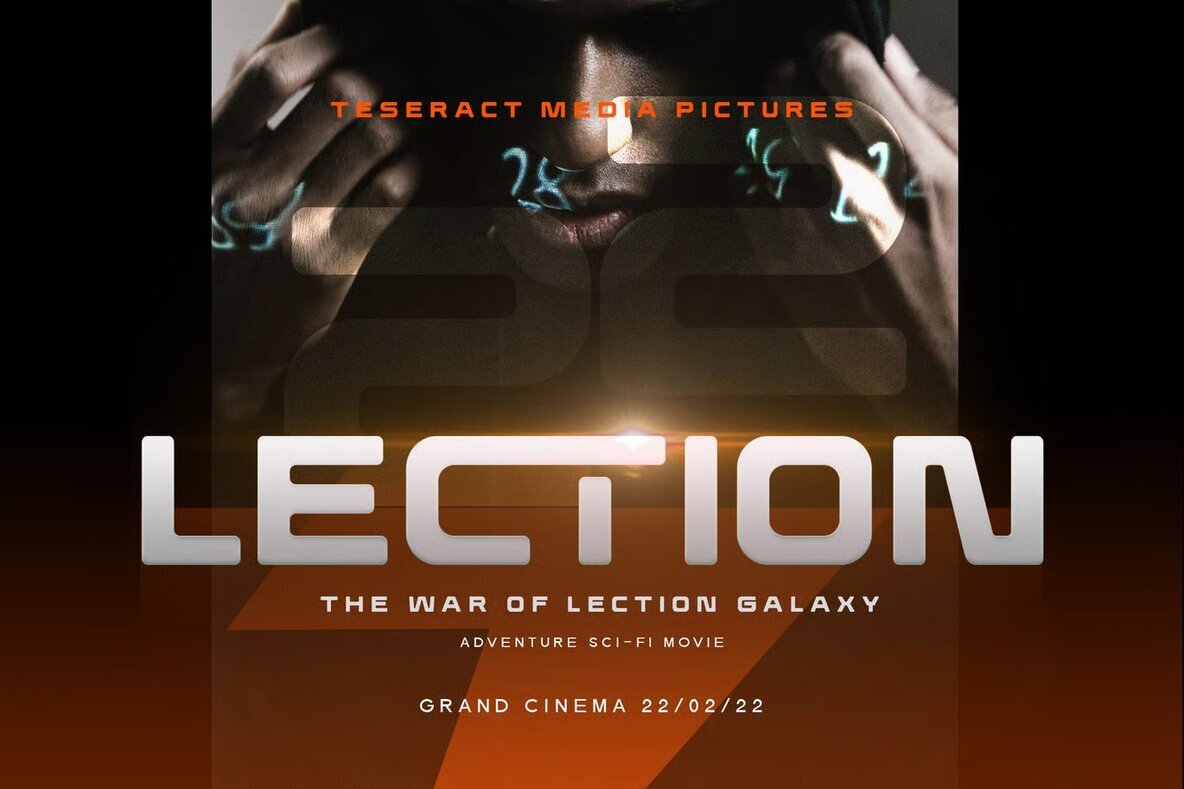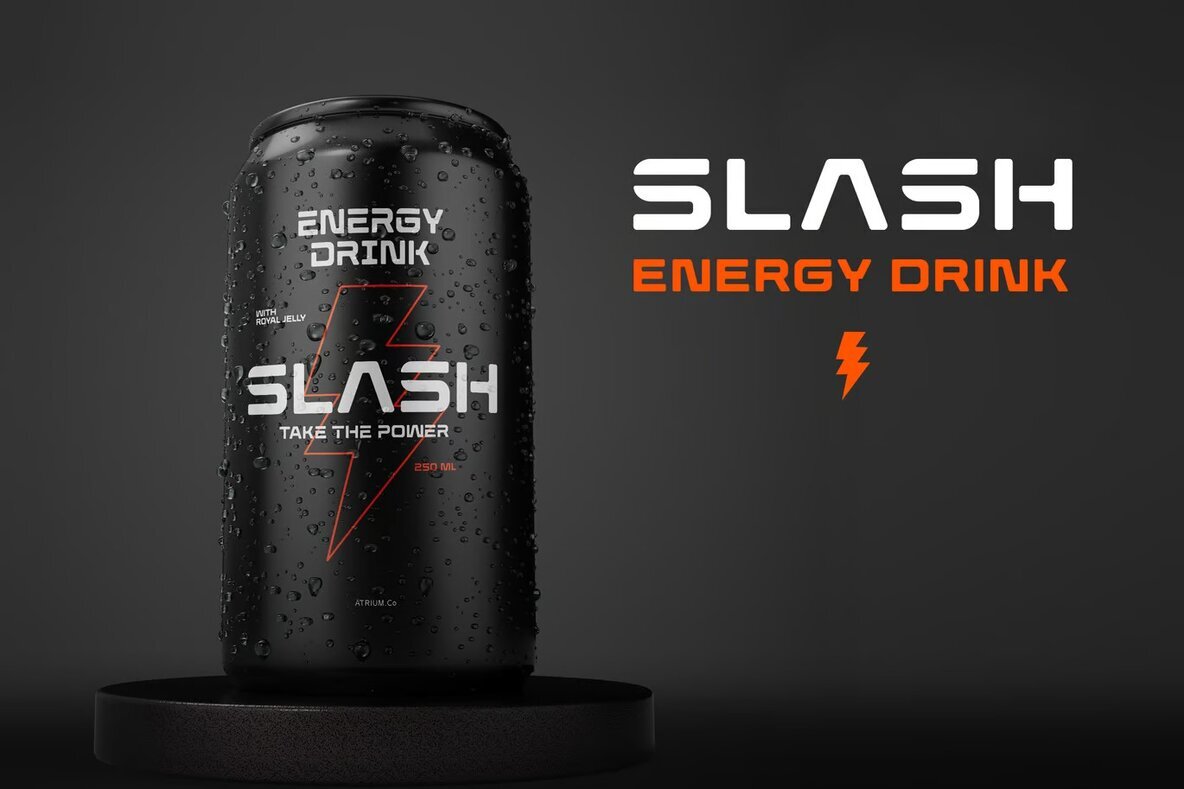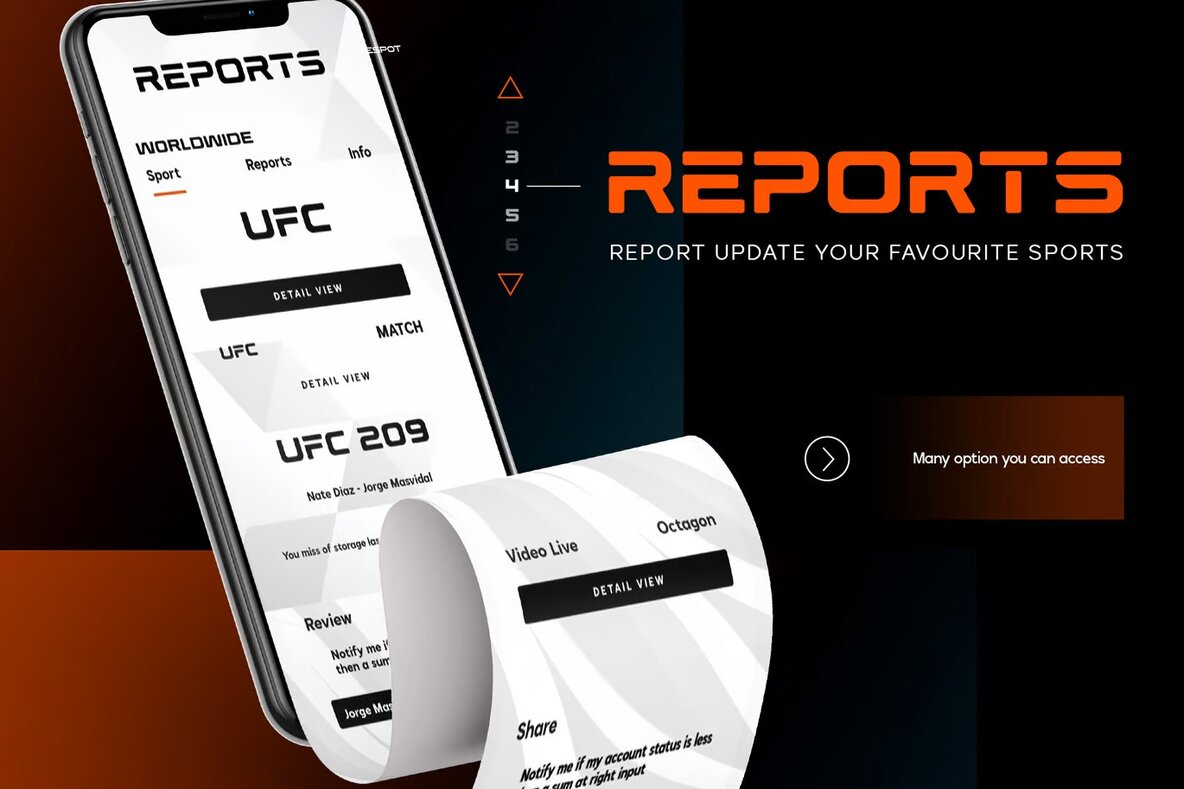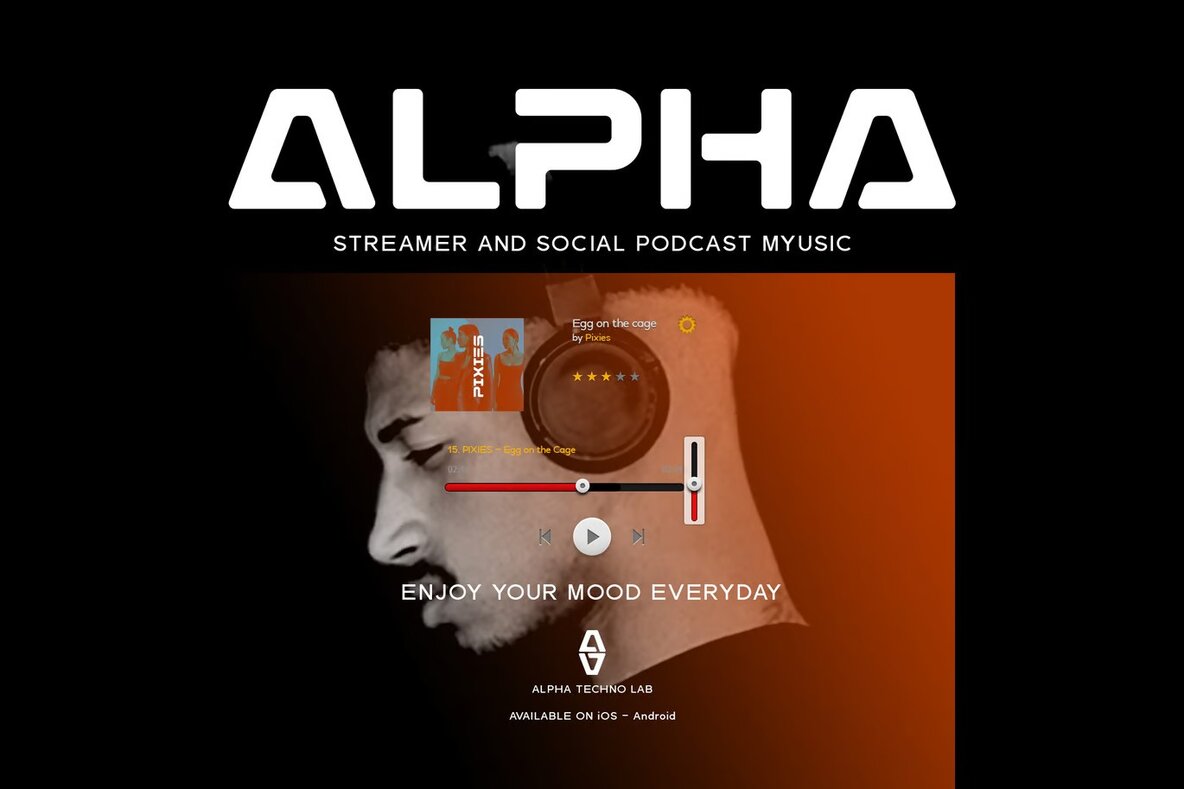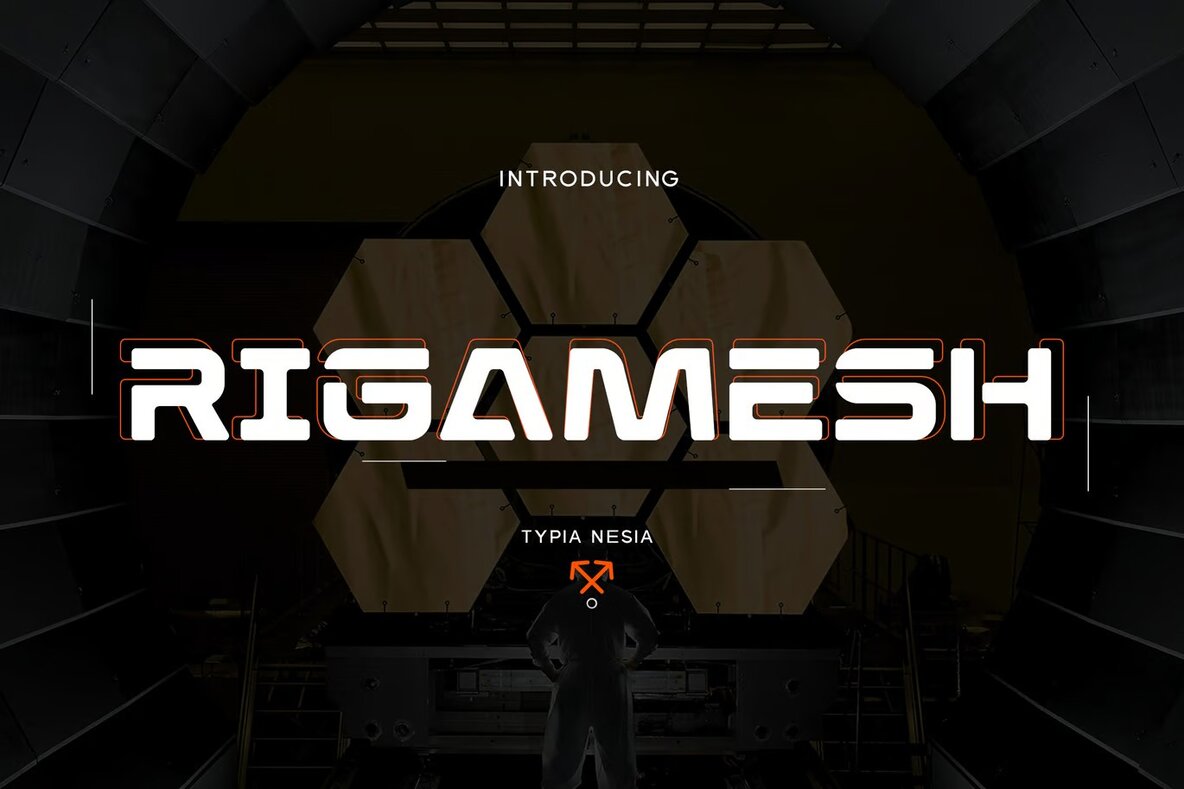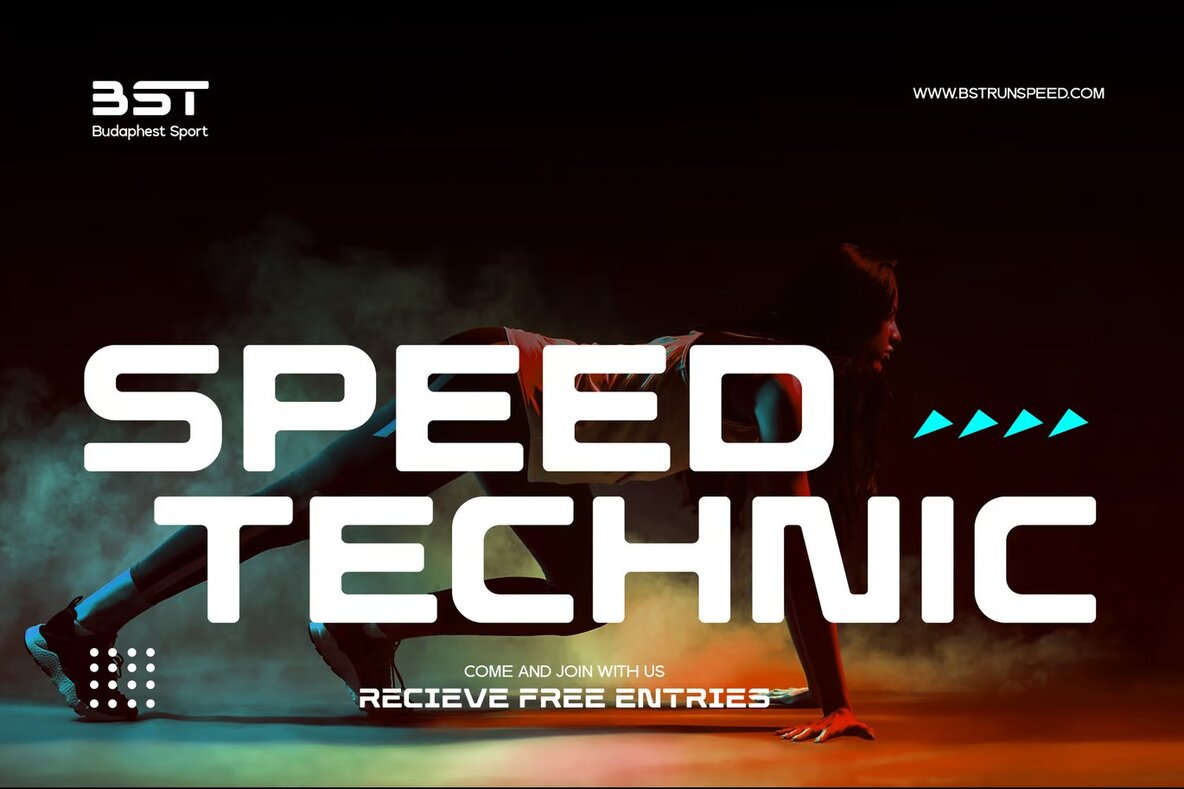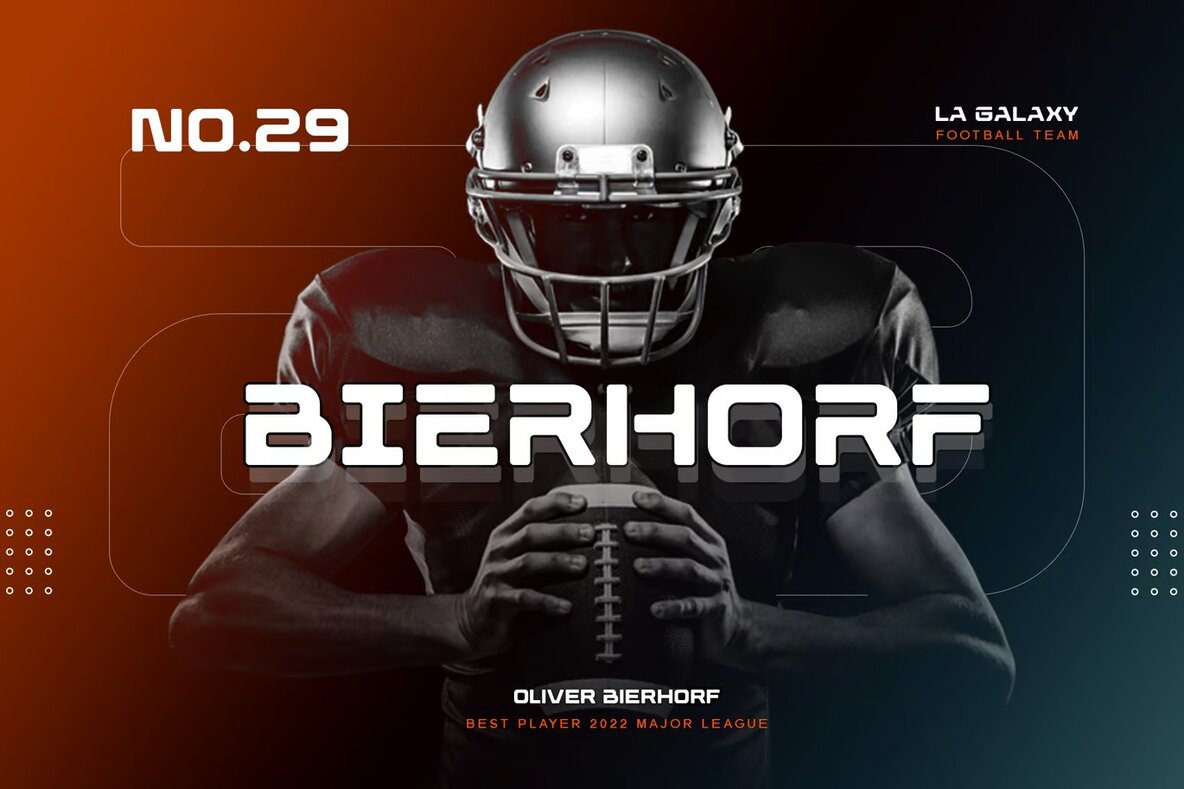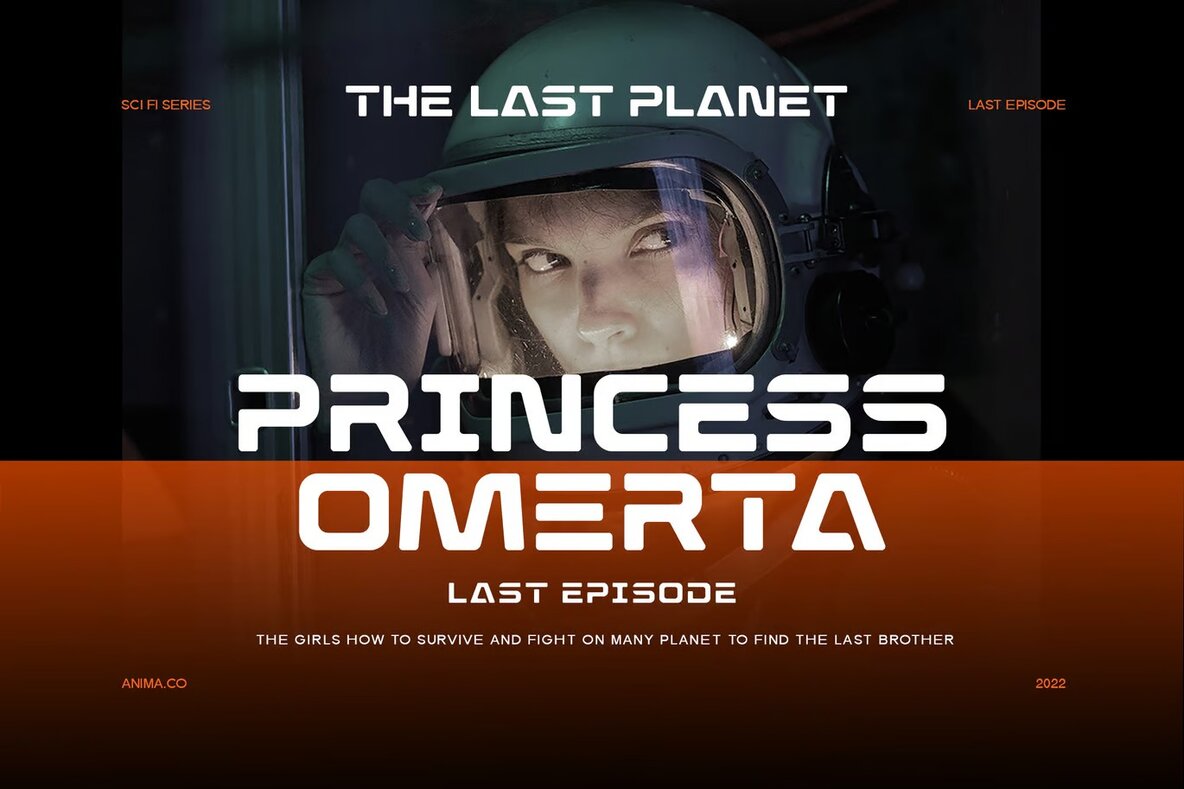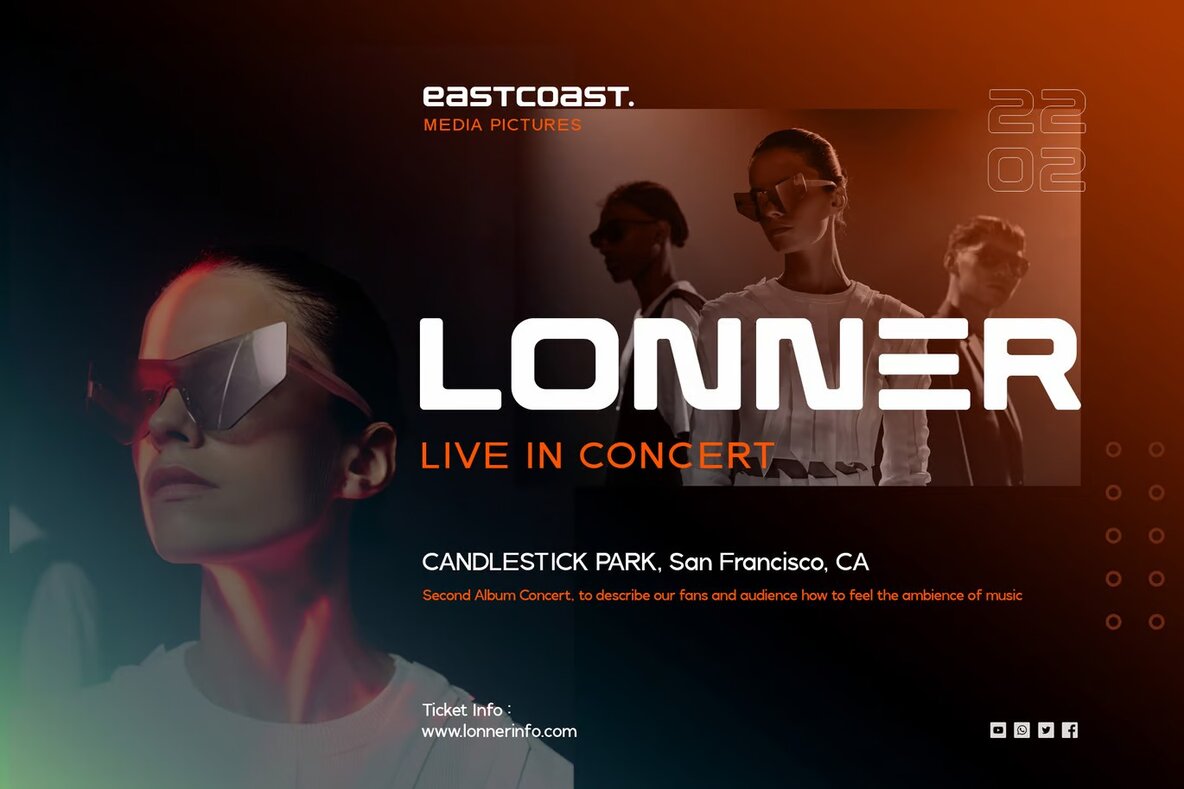
Rigamesh Font
Rigamesh Regular
Rigamesh is a Sci-Fi and sports game display font characterized by its bold, expanded sans serif style. This versatile font is ideal for a variety of creative projects, including logo branding, editorial and esport design, as well as retro 80s-inspired themes. Whether you're working in the gaming industry or need to capture the dynamic spirit of sports racing and supercar brands, Rigamesh delivers a powerful visual impact. It's also a great choice for music posters, website design, modern advertising, and poster quotes that require a strong and futuristic aesthetic.
Suitable for both digital and print projects, Rigamesh provides a robust typographic solution for special events and eye-catching book or cover titles. Its clean lines and bold form make it an excellent choice for designs needing a contemporary edge. The font's design ensures clear readability while maintaining a distinctly modern look, making it a reliable choice for any project demanding attention-grabbing and engaging typography.